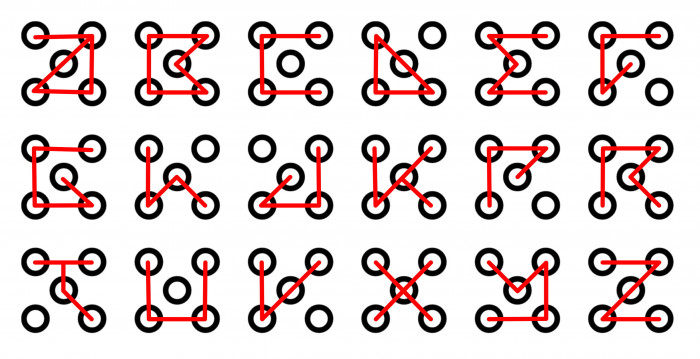
Not very readable at first glance, but pretty good attempt though…
Maybe adding a 5th number in the center...
@elmoyenique Then 5 Dots Are Great of then & now you Connect Lines with Circle and Make All the Letters!
@elmoyenique I like the fifth node in the center idea. The font was not designed to be readable. It is for showing the possible relationships between four nodes. However a fifth node in the center might really work well for game purposes (this is an rpg font). And then the font would be readable. I like the idea you presented. :)